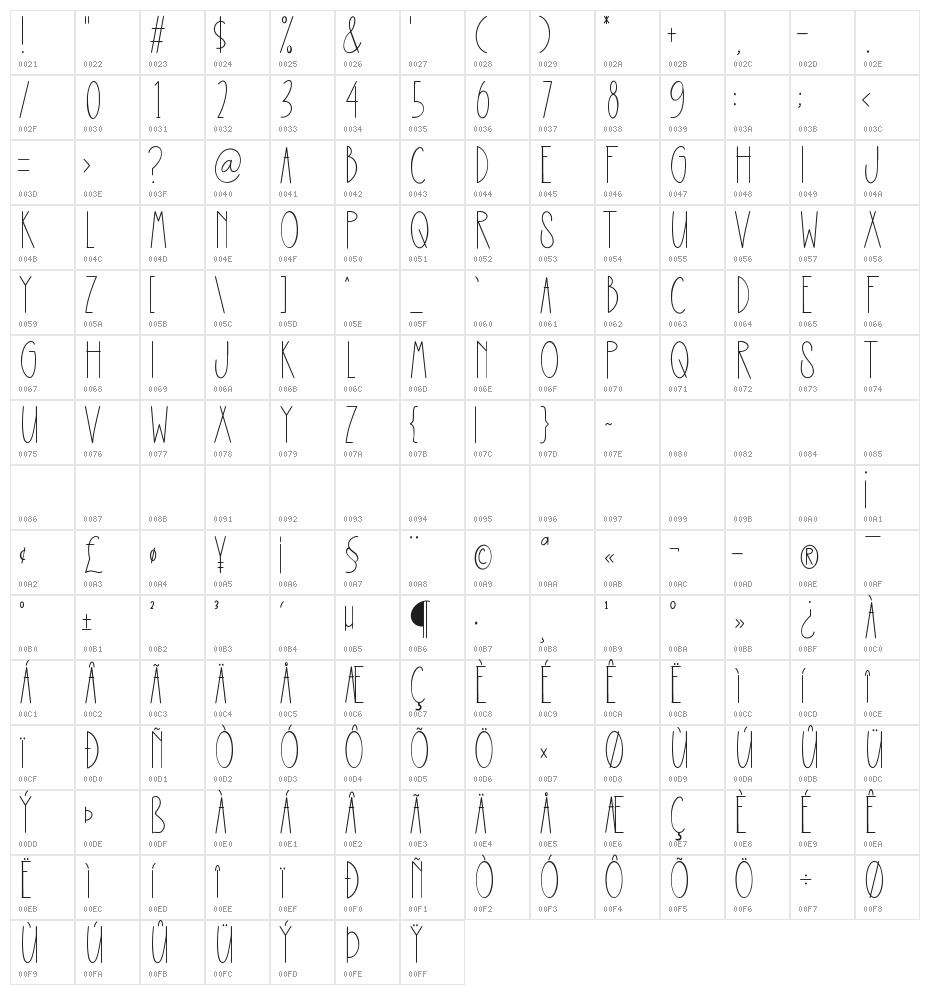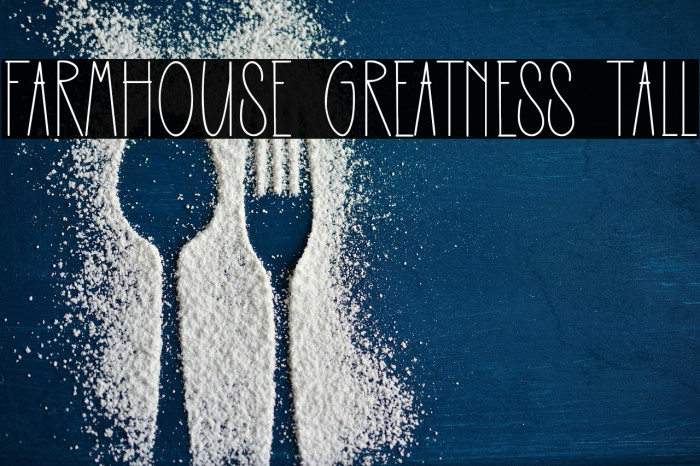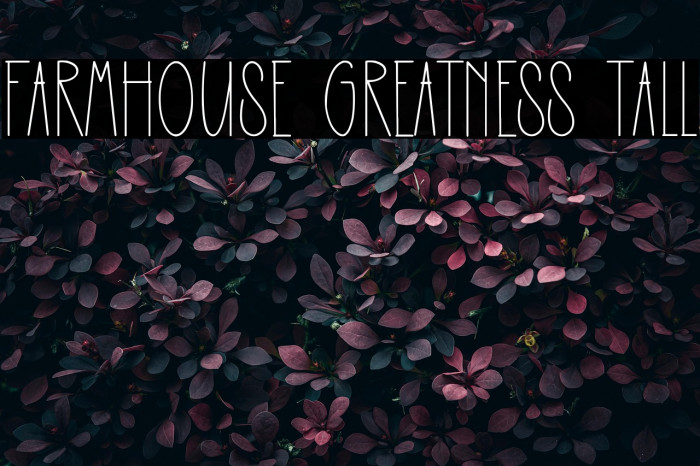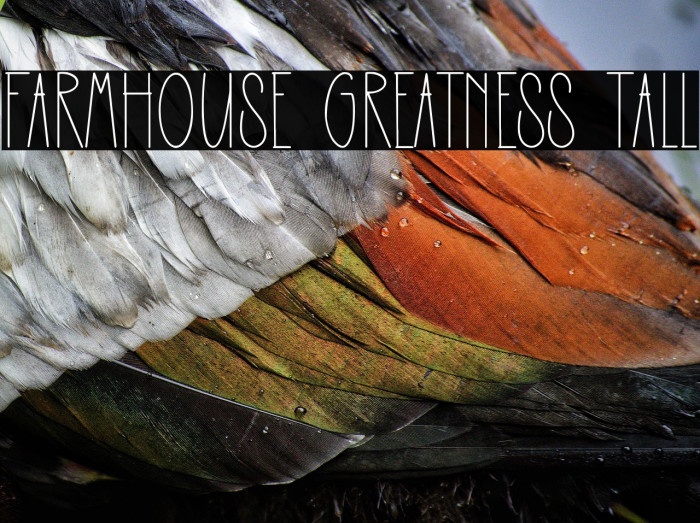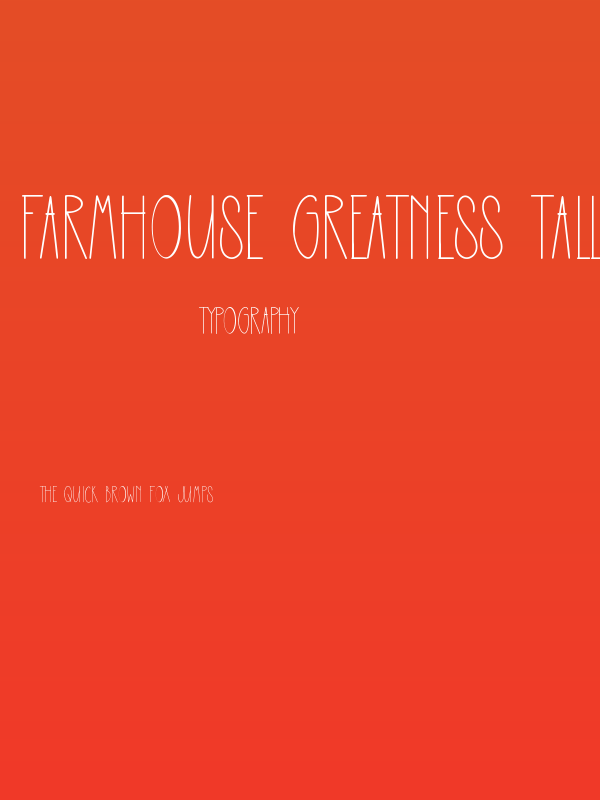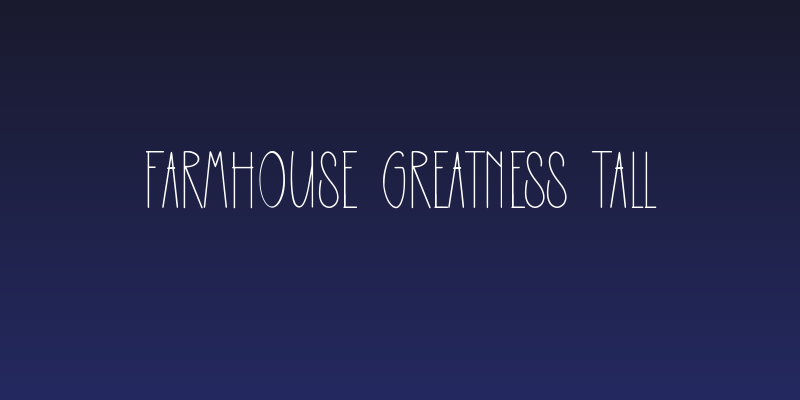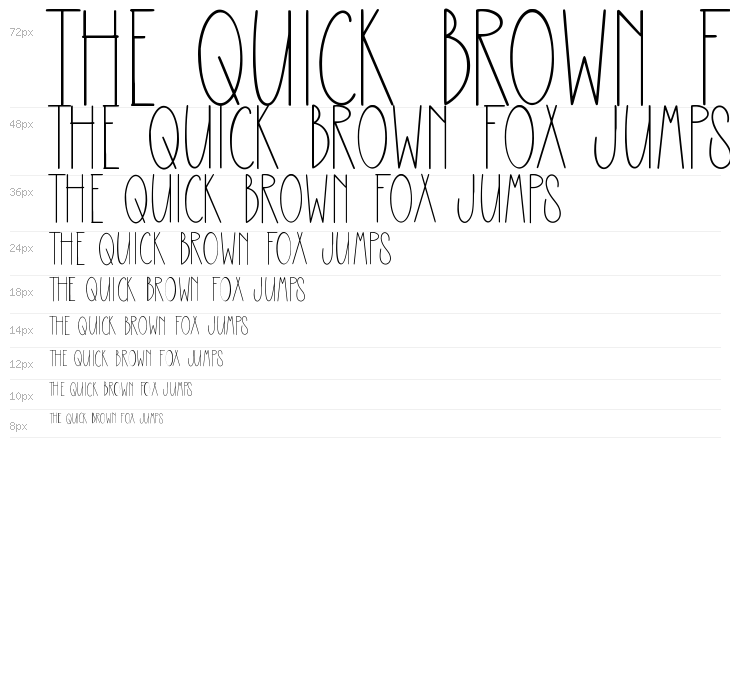
Farmhouse Greatness Tall Font
Farmhouse Greatness Tall Description
A tall, narrow font with a modern and minimalist design, featuring thin strokes and a clean appearance.
| Proposed Projects | Posters, modern branding, minimalist designs. |